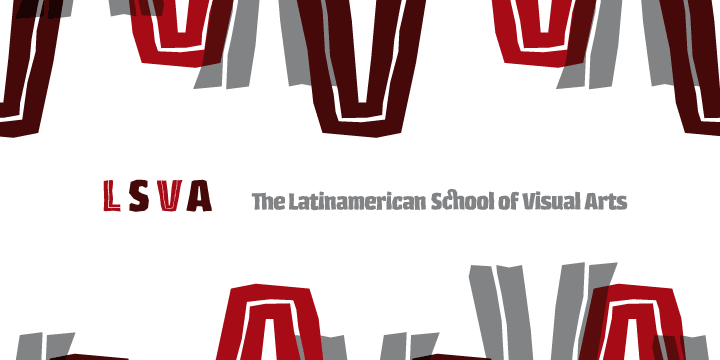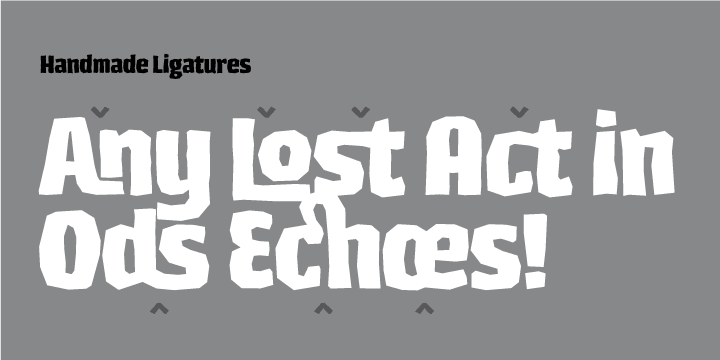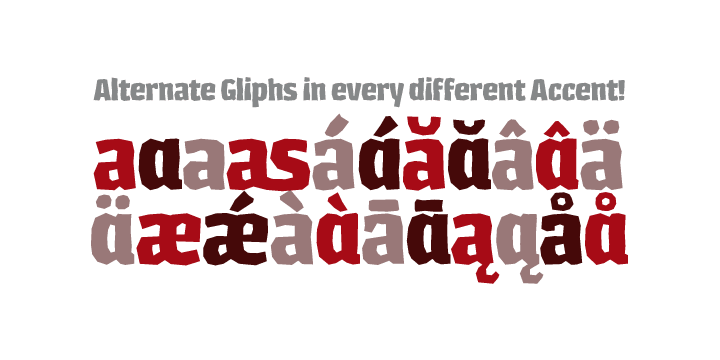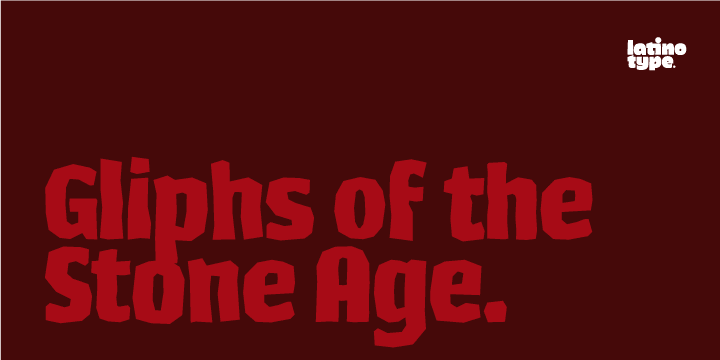
Los Lana Pro is a display and hand display font published by Latinotype.
Los Lana Pro is a handmade display typeface. Unlike other font families, this type has
not a modular structure, that is, each character has been individually designed.
The coherence of structure elements across different characters is given by irregular strokes. This curveless typeface is perceived as being curved because of its straight lines, which form different-size angles.
Los Lana Pro is a rustic typeface that captures the stereotypical “Andean hippie”
handmade aesthetics. Irregular shapes and broken lines give it a distinct personality. Los
Lana Pro looks better in larger sizes. Includes many ligatures, two groups of alternate
characters, and titling caps characters. Languages include: Basic Latin, Western
European, Euro, Catalan, Baltic, Turkish, Central European, Romanian and Pan Africa
Latin. Designed by Luciano Vergara